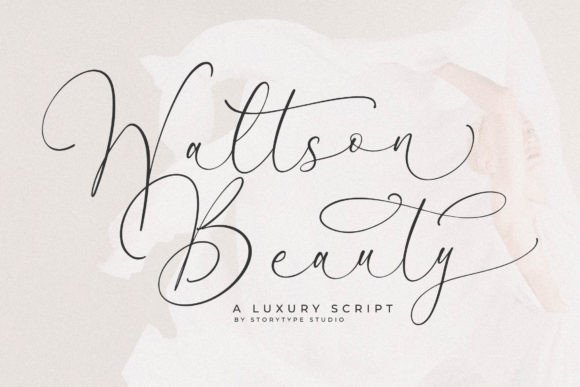
Journey into the Realm of Enchantment with Waltson Beauty: A Script Font that Captivates Hearts
In a world of ordinary fonts, Waltson Beauty emerges as an exquisite symphony of elegance and charm. This script font, meticulously crafted by the talented artisans at Storytype Studio, is a masterpiece that will elevate your designs to new heights of sophistication.
Immerse yourself in the allure of Waltson Beauty's delicate strokes and graceful curves. Each letter is a testament to the artistry of its creators, perfectly balanced and harmonized to create a visual feast for the eyes. With its incredibly versatile style, Waltson Beauty effortlessly adapts to a myriad of design projects, from enchanting posters to heartfelt invitations, from captivating social media posts to stunning branding materials.
Discover the Enchanting Allure of Waltson Beauty:
- Unparalleled Elegance: Waltson Beauty exudes an air of sophistication and grace that is unmatched. Its refined lines and delicate details add a touch of timeless elegance to any design.
- Versatility Redefined: This remarkable font seamlessly transitions from formal to playful, from classic to contemporary. Its adaptability makes it the perfect choice for a diverse range of projects, ensuring that your designs always stand out.
- Effortless Creativity: With Waltson Beauty at your fingertips, unleash your creativity and watch your designs flourish. Its user-friendly nature makes it easy to incorporate into any project, enabling you to bring your artistic vision to life effortlessly.
Embrace the Beauty of Waltson Beauty and Transform Your Designs:
1. Elevate Poster Designs: Let Waltson Beauty's elegant charm take center stage in your poster designs. Its captivating presence will draw attention and leave a lasting impression on your audience.
2. Create Heartfelt Invitations: Infuse your invitations with a touch of warmth and sincerity with Waltson Beauty. Its delicate strokes will convey your heartfelt sentiments in a way that words alone cannot.
3. Captivate Social Media: Make your social media posts shine with the allure of Waltson Beauty. Its visually striking style will capture the attention of your followers, ensuring that your content stands out in the crowded digital landscape.
4. Craft Stunning Branding Materials: Elevate your brand identity with the sophistication of Waltson Beauty. Its timeless elegance will add a touch of professionalism and credibility to your branding, making a lasting impression on your clients.
Join the Creative Revolution with Waltson Beauty:
Waltson Beauty is more than just a font; it's a gateway to a world of creative possibilities. Its enchanting aura will inspire you to push the boundaries of your imagination and craft designs that resonate with your audience. Embrace the beauty of Waltson Beauty and embark on a creative journey that will leave you breathless.